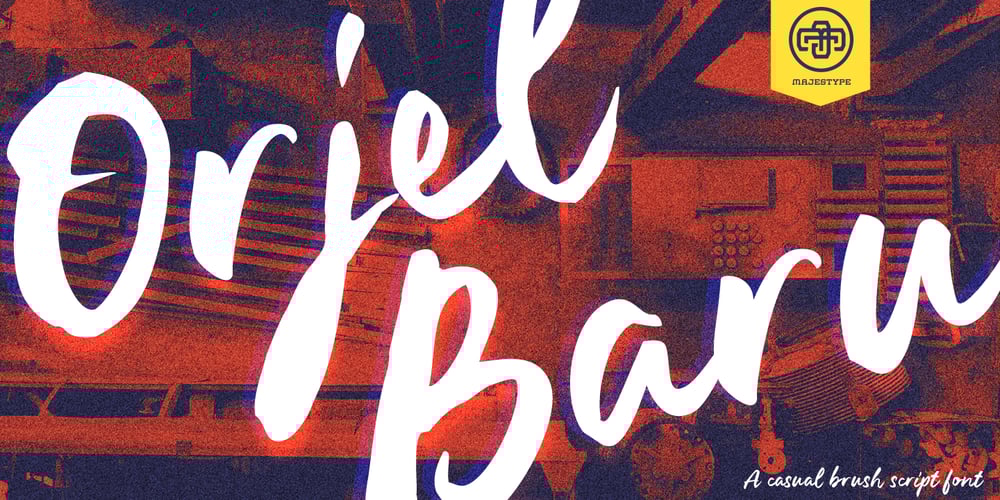
Orjel Baru Font Family was designed by Dexsar Harry Anugrah and published by Majestype. Orjel Baru contains 1 styles and family package options. Orjel Baru is natural combination of handwriting and brushpen styles. Each letter was made with love and passion. Orjel Baru are designed to work well on the design like invitation, clothing, photography, branding, album covers, signature and etc.Orjel Baru support multilingual & OpenType features, that can allow you to choose a character that you like and suitable for the project you’re working on.Enjoy the Orjel Baru Cheers!